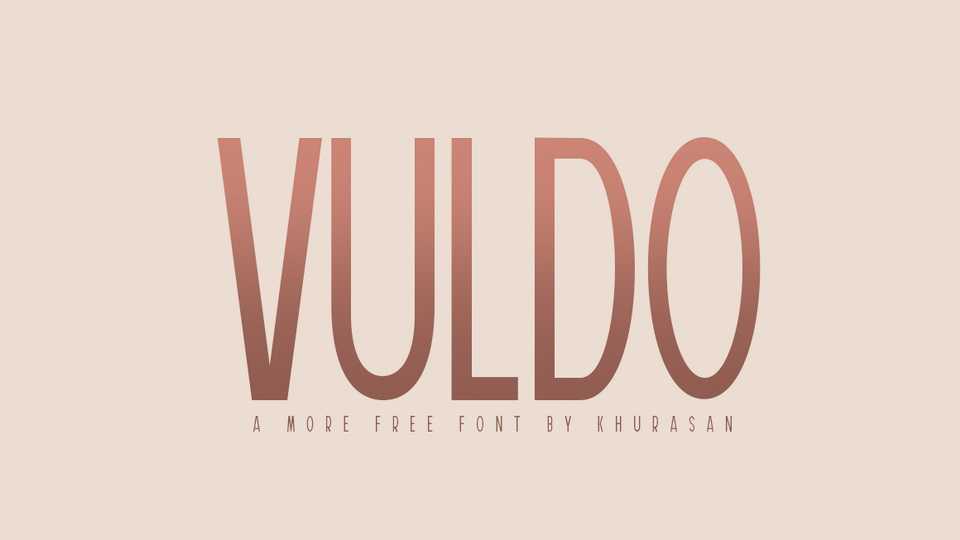
Download Vuldo typeface, a condensed sans serif font family in two styles with an elegant and modern look. Vuldo typeface is perfect for for posters and headlines, social media, branding and more.